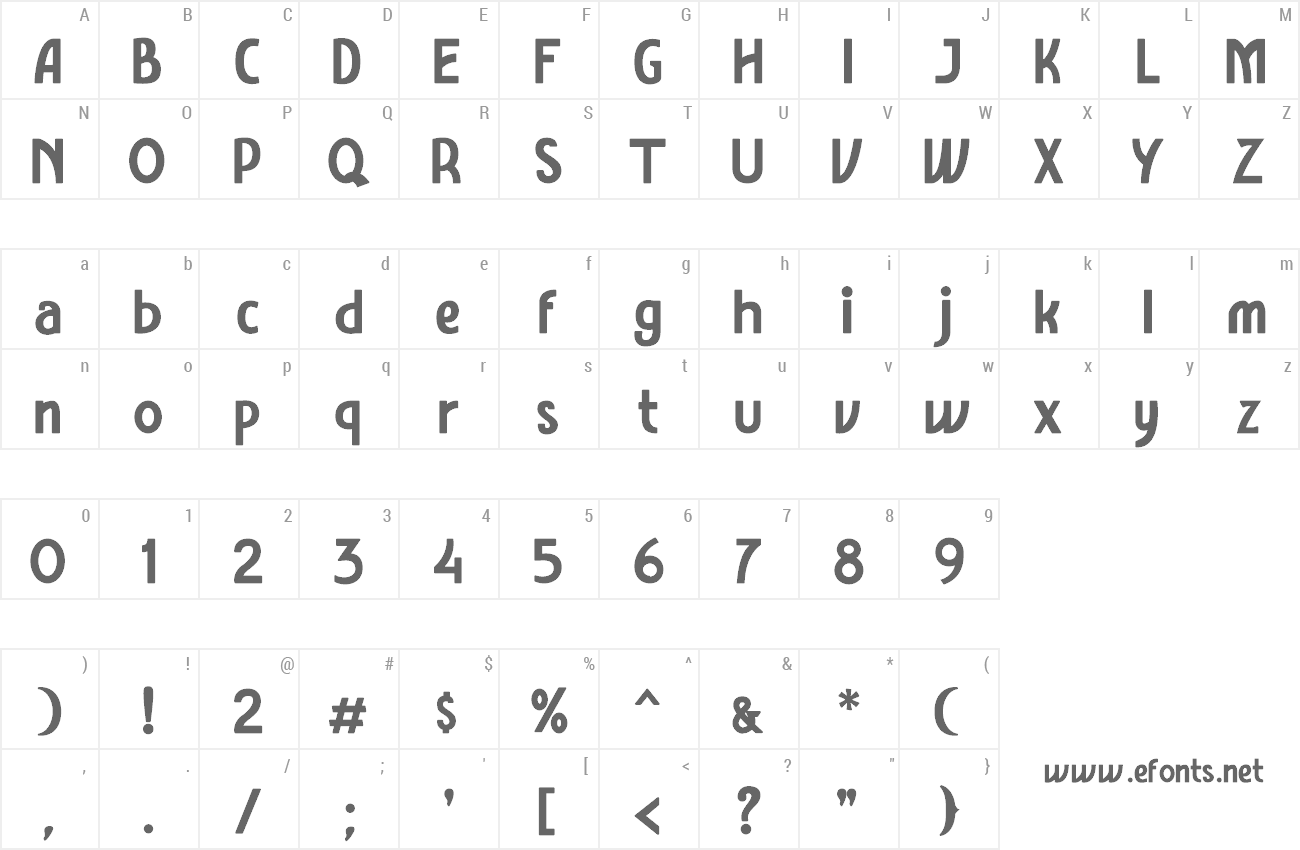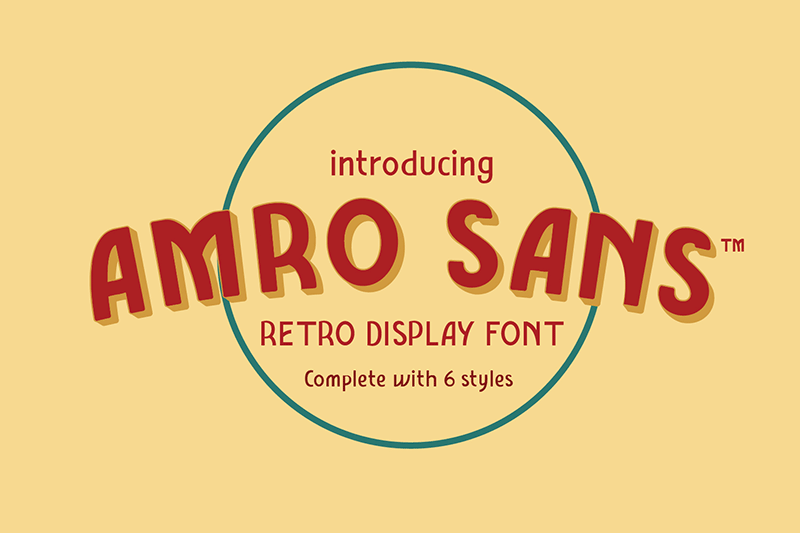
Preview and download Amro Sans Font. Created by INKsTYPIA in Fancy Retro styles with Free for personal use license.
| Font name: | Amro Sans |
| Author: | INKsTYPIA |
Amro Sans is a retro-style typeface that is suitable for use as a text display or headline, can be used also for logos, labels, and so on. Equipped with 4 different styles (Regular, Italic, Bold, Bold Italic) and 2 additional styles (Extrude bold, Extrude Bold Italic). Caution: Only for personal use, Please check our store for commercial licenses: Fontbundle: https://fontbundles.net/inkstypia/123311-amro-sans Creative Fabrica : https://www.creativefabrica.com/product/amro-sans-family/ ======================================== Follow us on Facebook : @inkstypia.std Instagram : @inkstypia Behance : https://www.behance.net/inkstypia Or drop an email to : inkstypia@gmail.com |